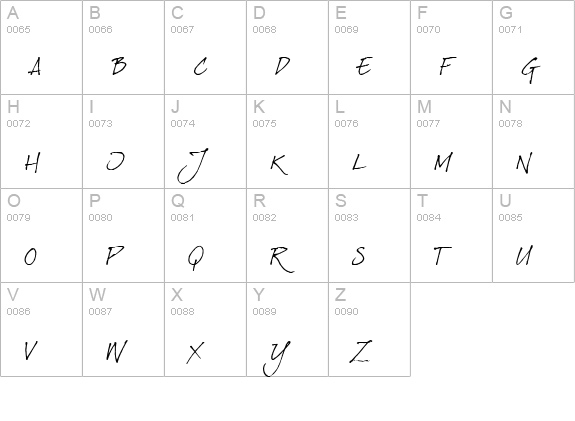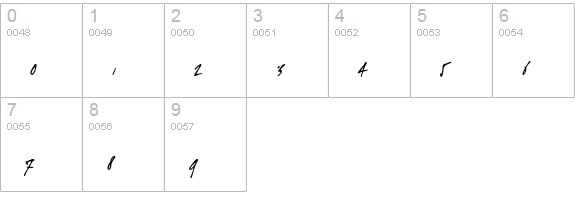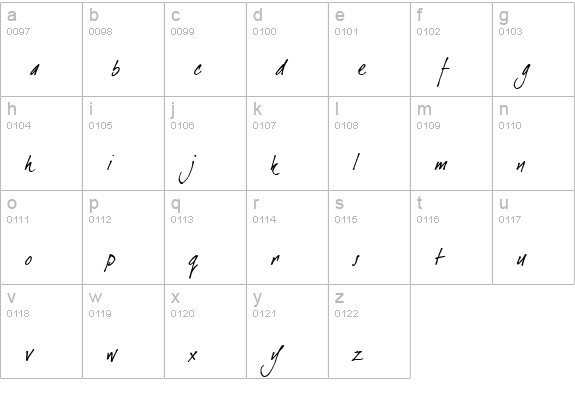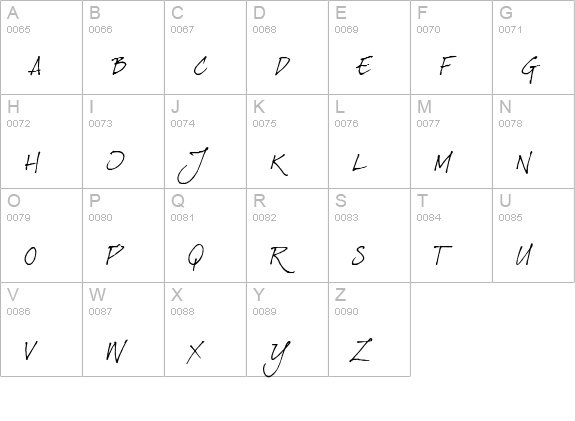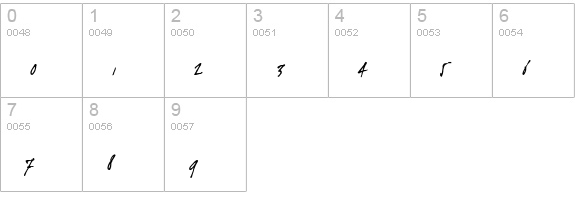
dearJoe Italic Font Details
dearJoe Italic is a distinctive, italic variant in the dearJoe typeface family \xE2\x80\x94 well suited to design and typography projects.
The dearJoe Italic font is a stylish and versatile typeface that exudes elegance and sophistication. Its sleek and slanted design adds a touch of modernity to any project, making it perfect for various creative endeavors. Whether you're working on a branding project, designing a website, or creating stunning graphics, this font will surely make your text stand out. The dearJoe Italic font is not only visually appealing but also highly readable, making it a great choice for both headlines and body text. Its smooth curves and unique letterforms give a distinctive look to your designs, setting them apart from the rest. Best of all, the dearJoe Italic font is available as a free download at FontsMarket.com, allowing you to access this stunning typeface without any cost. Don't miss out on the opportunity to enhance your projects with this beautiful font – download dearJoe Italic today and elevate your design game!